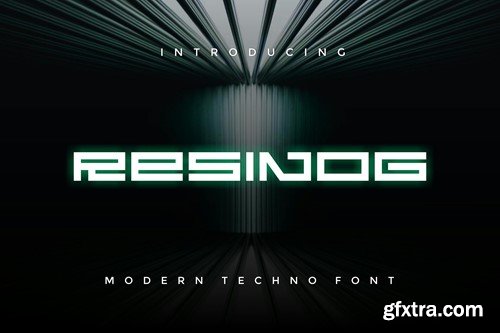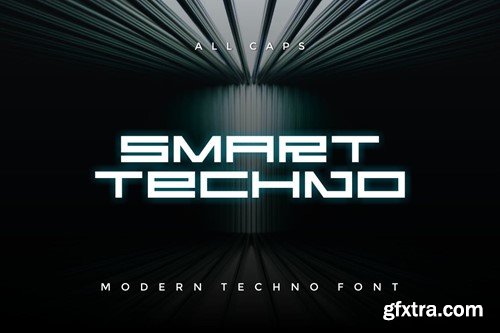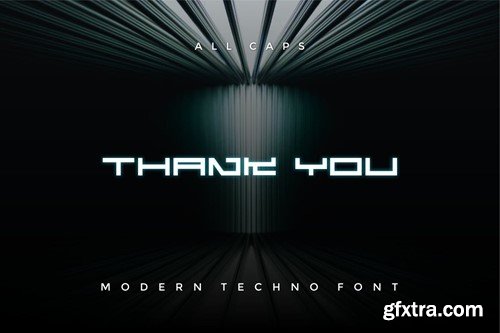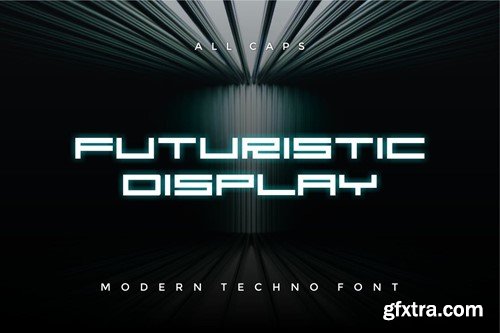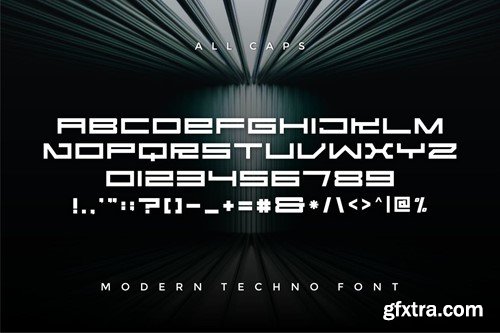
Resinog - Modern Techno Font
Introducing our new product Resinog - Modern Techno Font Resinog is a bold, modern display font with playful flair, ideal for attention-grabbing headlines, logos, and diverse design projects. Versatile and readable in both digital and print, Resinog adds a dynamic touch to your message. availlable